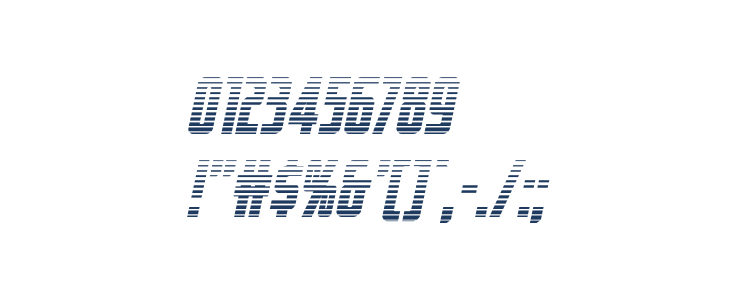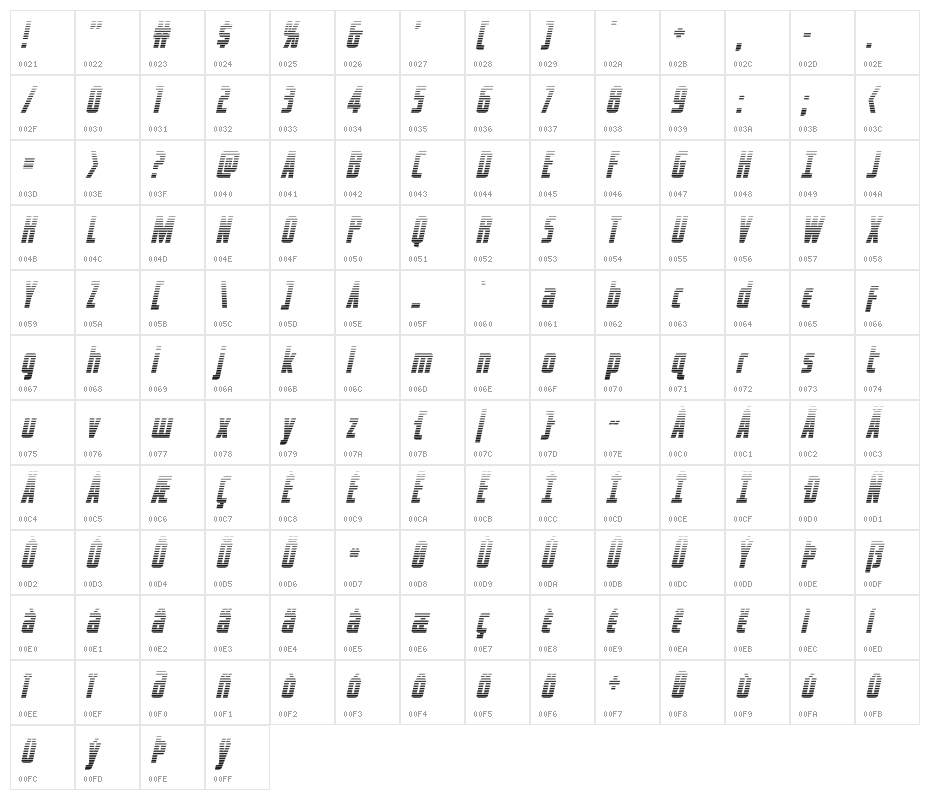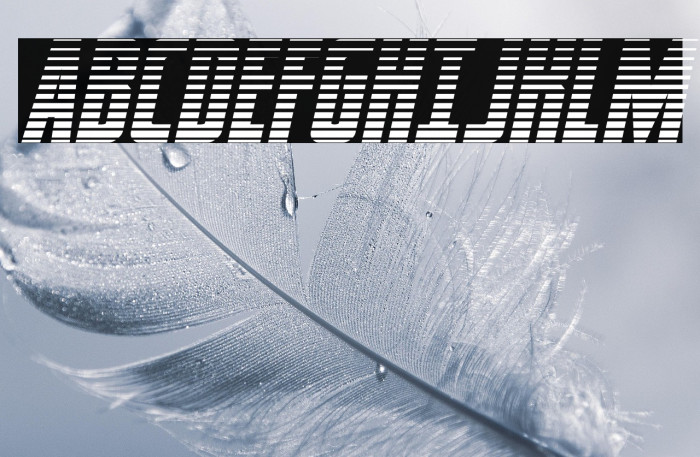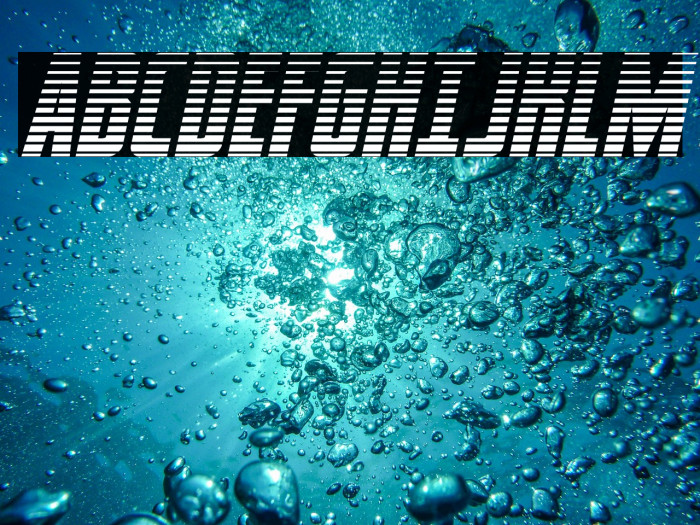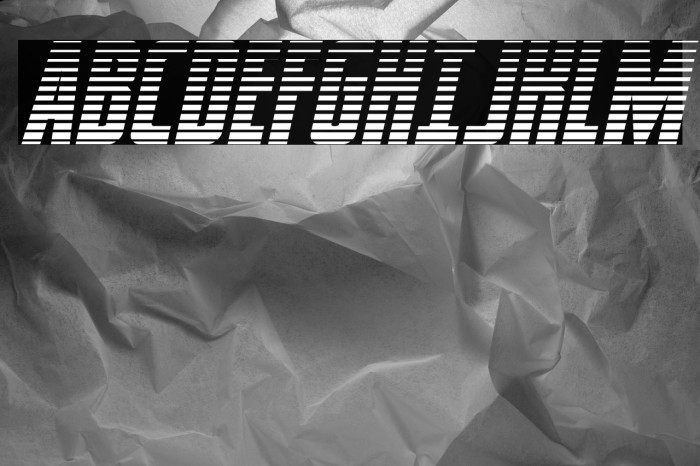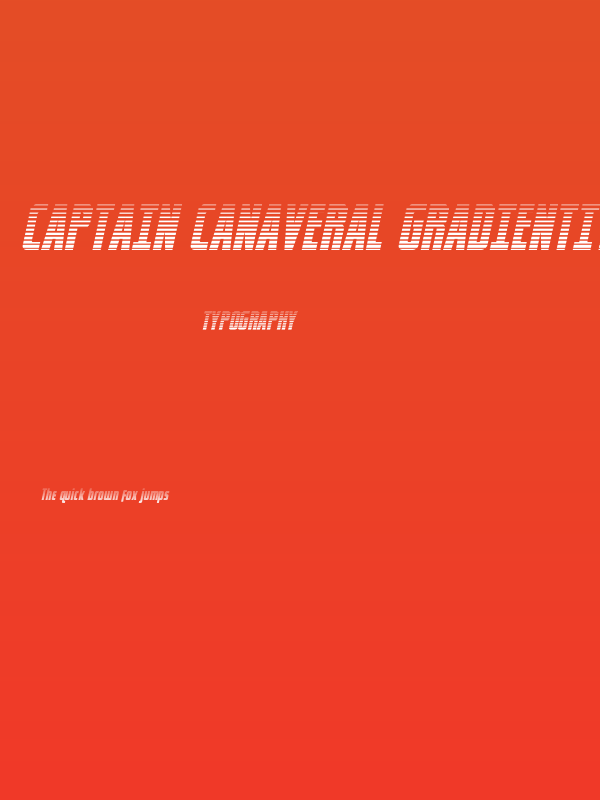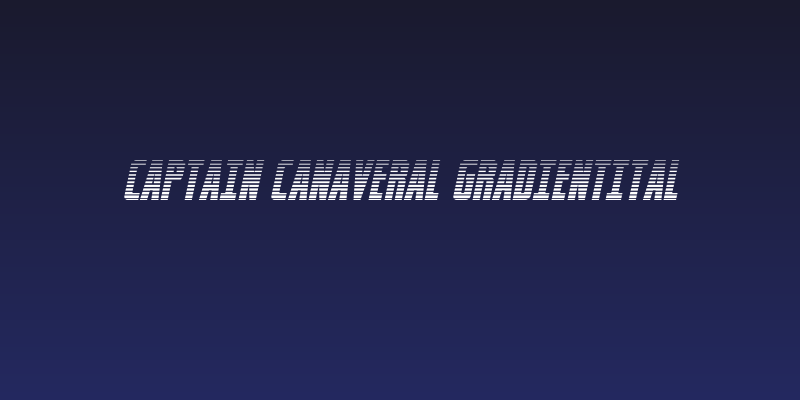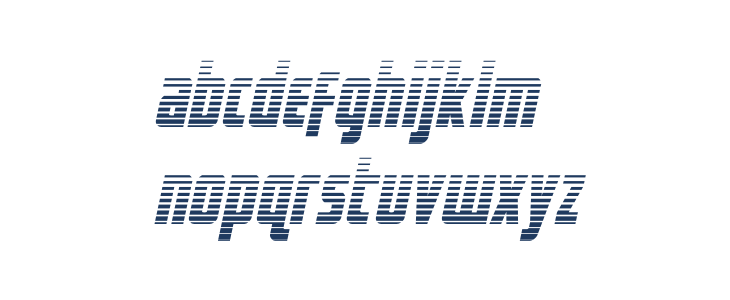
Captain Canaveral GradientItal Font
Captain Canaveral GradientItal Description
This font features a bold and dynamic design with a distinct gradient effect that gives it a futuristic and high-tech appearance. The characters are italicized, adding a sense of motion and speed, which is further emphasized by the horizontal lines cutting through each letter. The uppercase and lowercase letters maintain a consistent style, with sharp angles and a slightly condensed form. Numbers and special characters are designed to match the overall aesthetic, making this font suitable for projects that require a modern and edgy look.